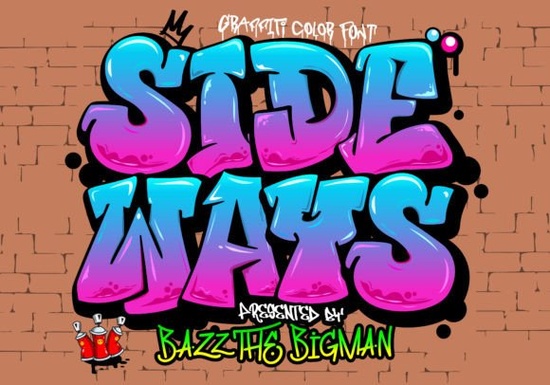
The Sideways Font is a graffiti-styled display color font with a bold urban street art feel. If you're working on t-shirt designs, sportswear logos, or eye-catching advertisements, this font brings an energetic, raw aesthetic that stands out. It's built as an OpenType-SVG color font, which means the colors are baked right into the letterforms no extra steps needed to get that vibrant, layered look.
What makes the Sideways Font different from regular fonts?
Most fonts come in a single flat color, and you have to manually add effects to make them pop. The Sideways Font works differently. As an OpenType-SVG color font, it already includes multiple colors and textures within each character. That means you get a realistic graffiti look straight out of the box with no extra design work.
This type of font is especially popular for projects where bold, attention-grabbing text is the goal. Think streetwear branding, music event posters, skate shop logos, or social media graphics that need an urban edge.
What can I design with the Sideways Font?
This font works well across a range of creative projects:
- T-shirt designs The graffiti style translates naturally to apparel, especially for streetwear and urban fashion lines
- Sportswear and team logos Its bold, angular lettering gives athletic branding an aggressive, competitive feel
- Advertisements and posters Great for event promotions, concert flyers, and sales banners
- Social media content Standout headers and quotes for Instagram, TikTok, and YouTube thumbnails
- Stickers and merchandise The built-in colors make it easy to produce vibrant prints without extra editing
How does it compare to other graffiti-style fonts?
There are plenty of graffiti fonts available, but most are standard single-color typefaces. What sets Sideways apart is its built-in color rendering. You don't need to layer effects or apply gradients manually. The textured, multi-tone appearance is ready to use as soon as you type.